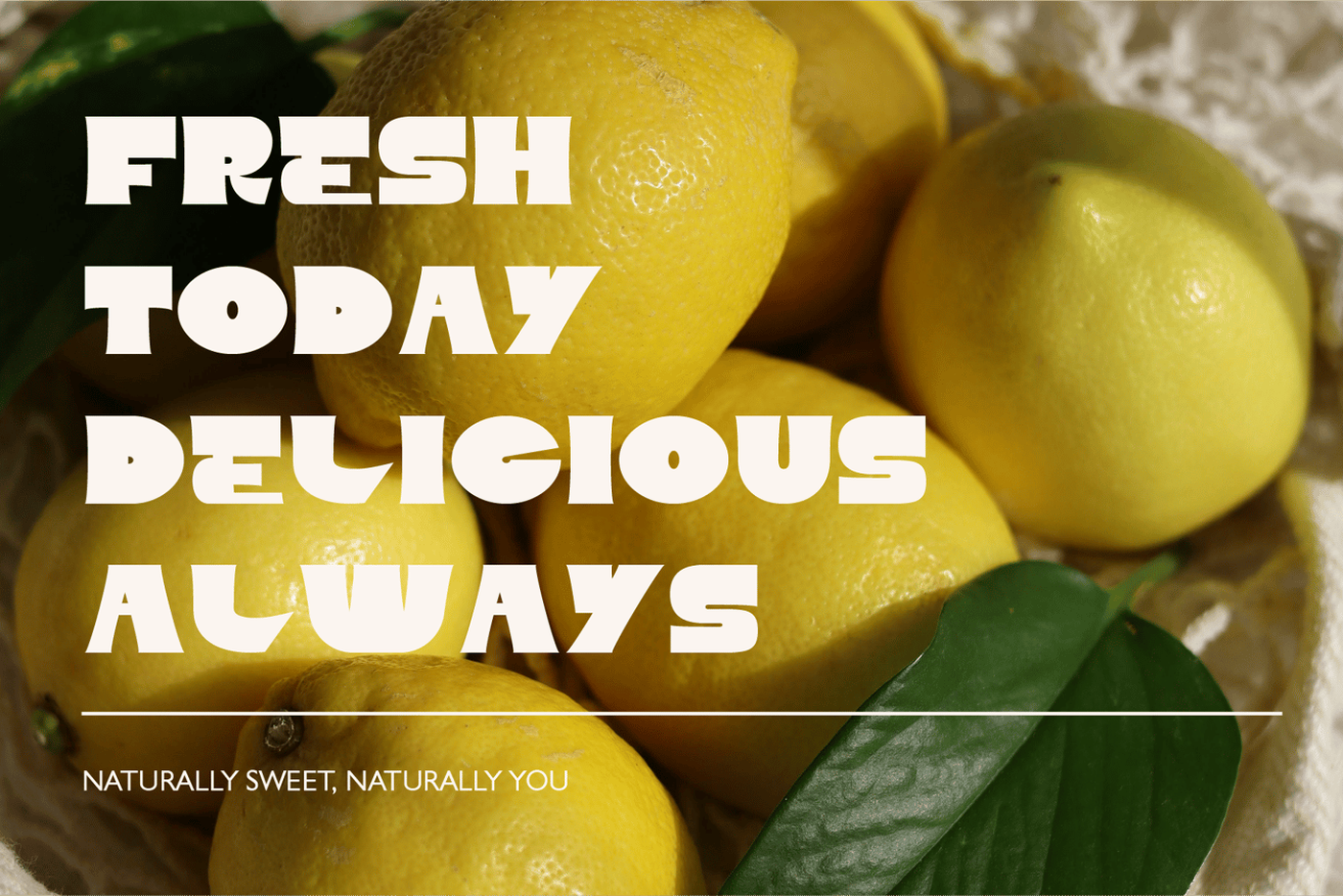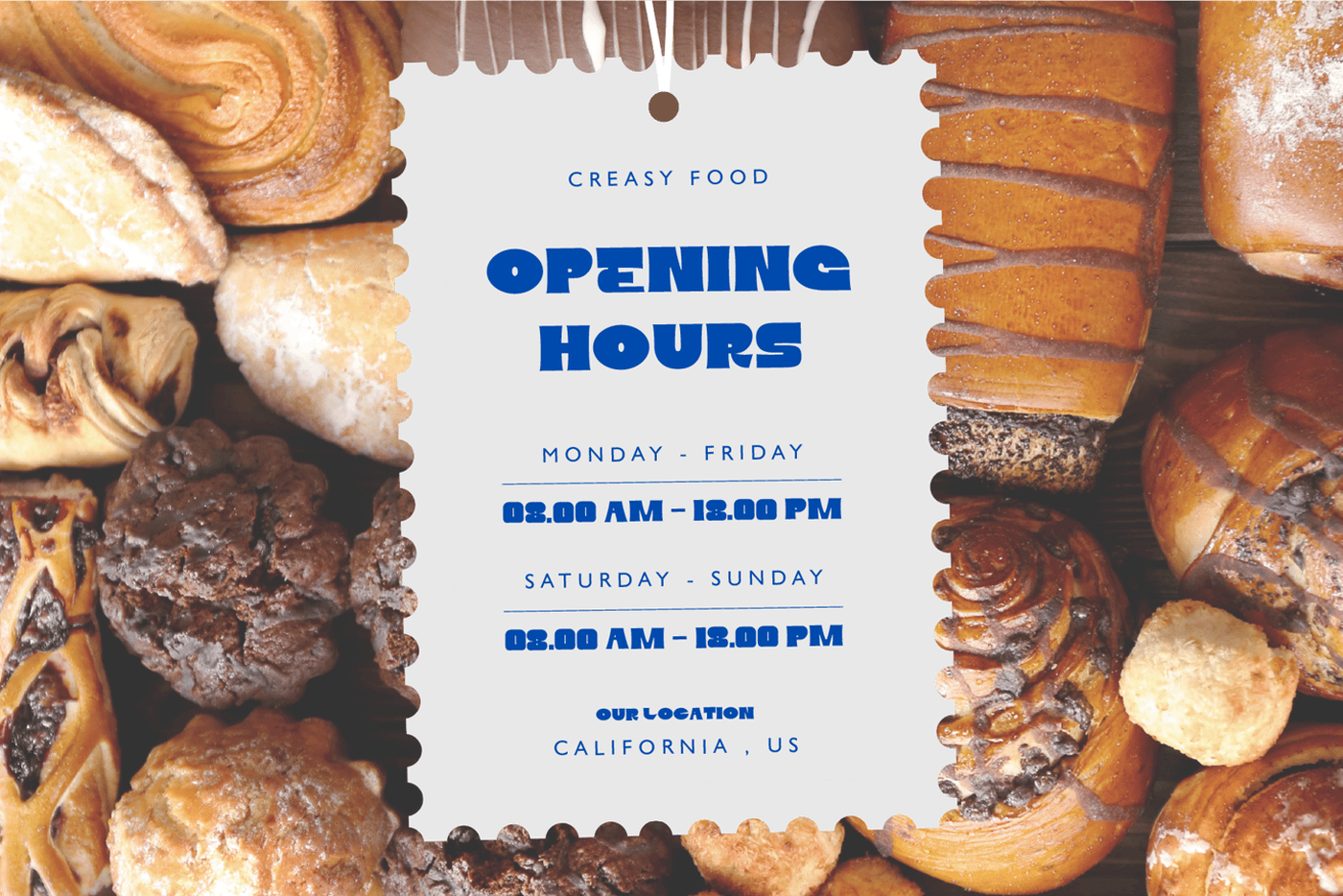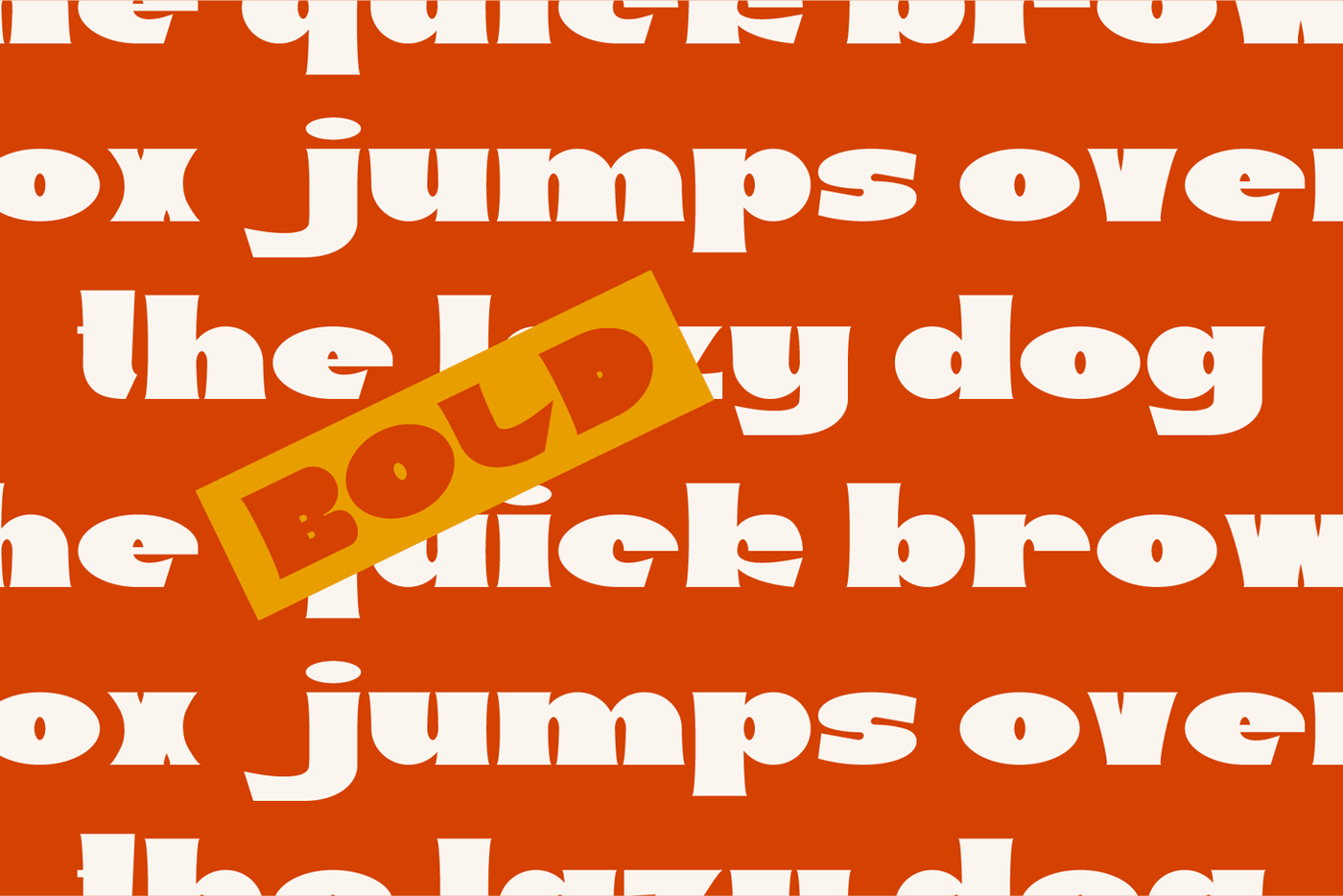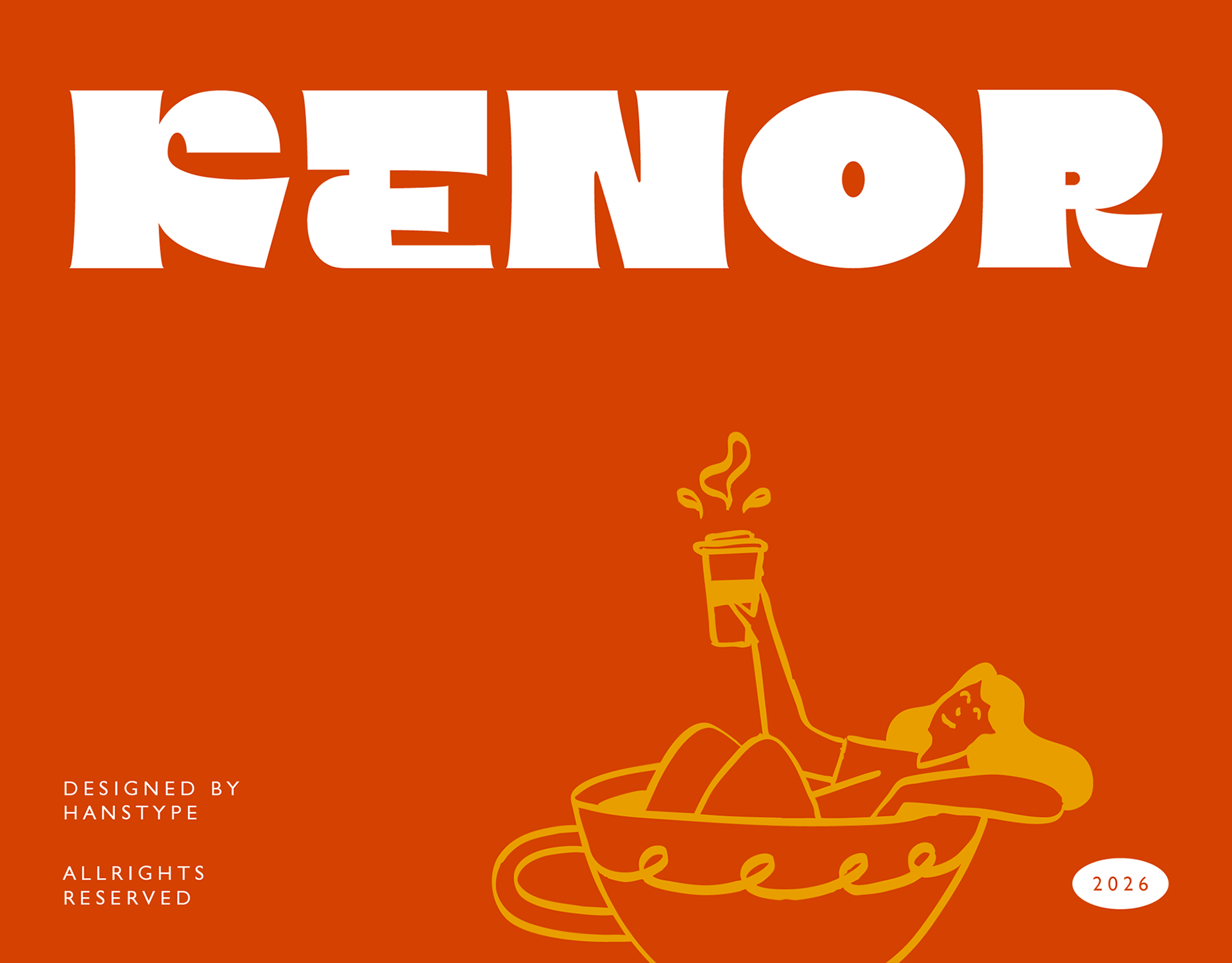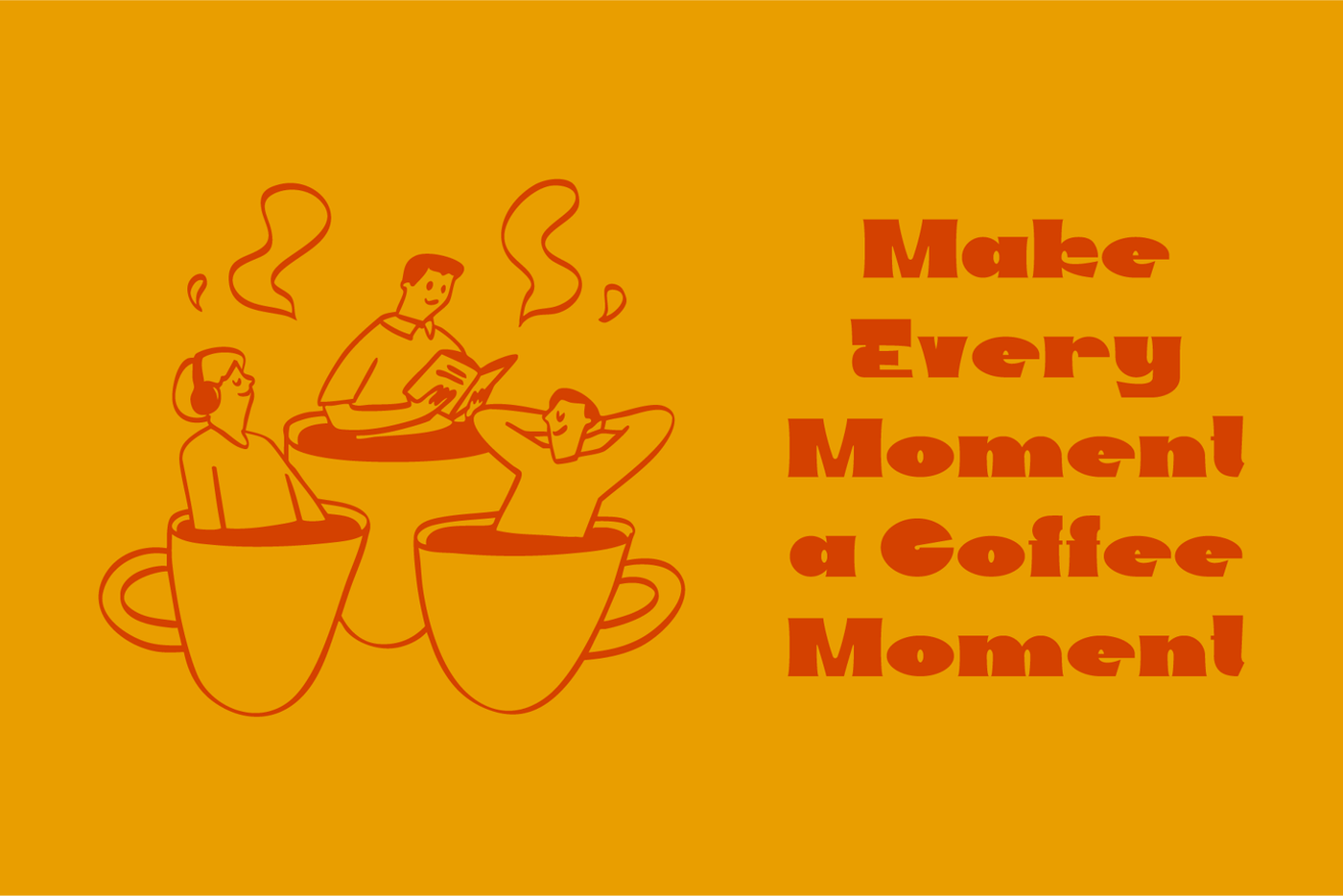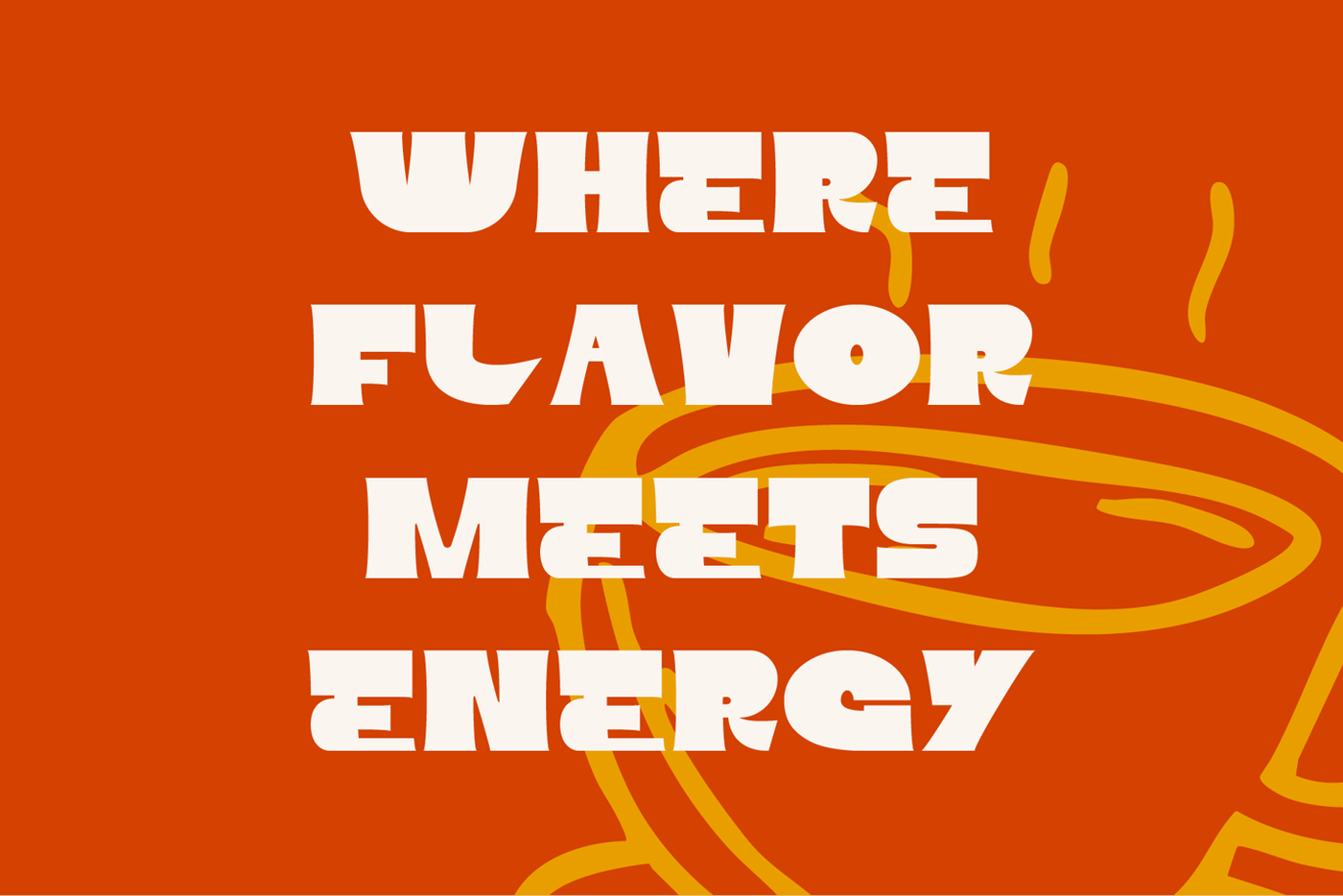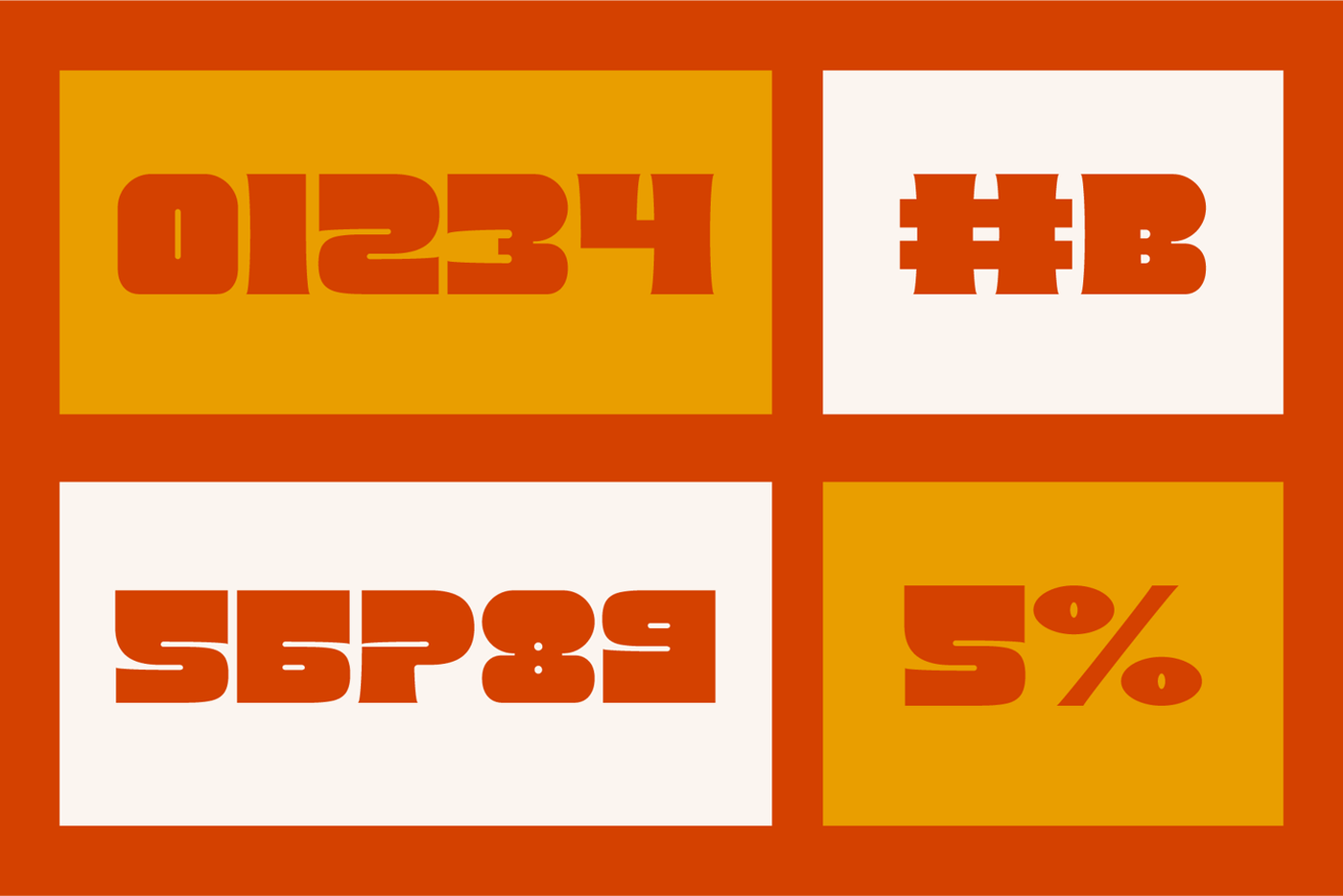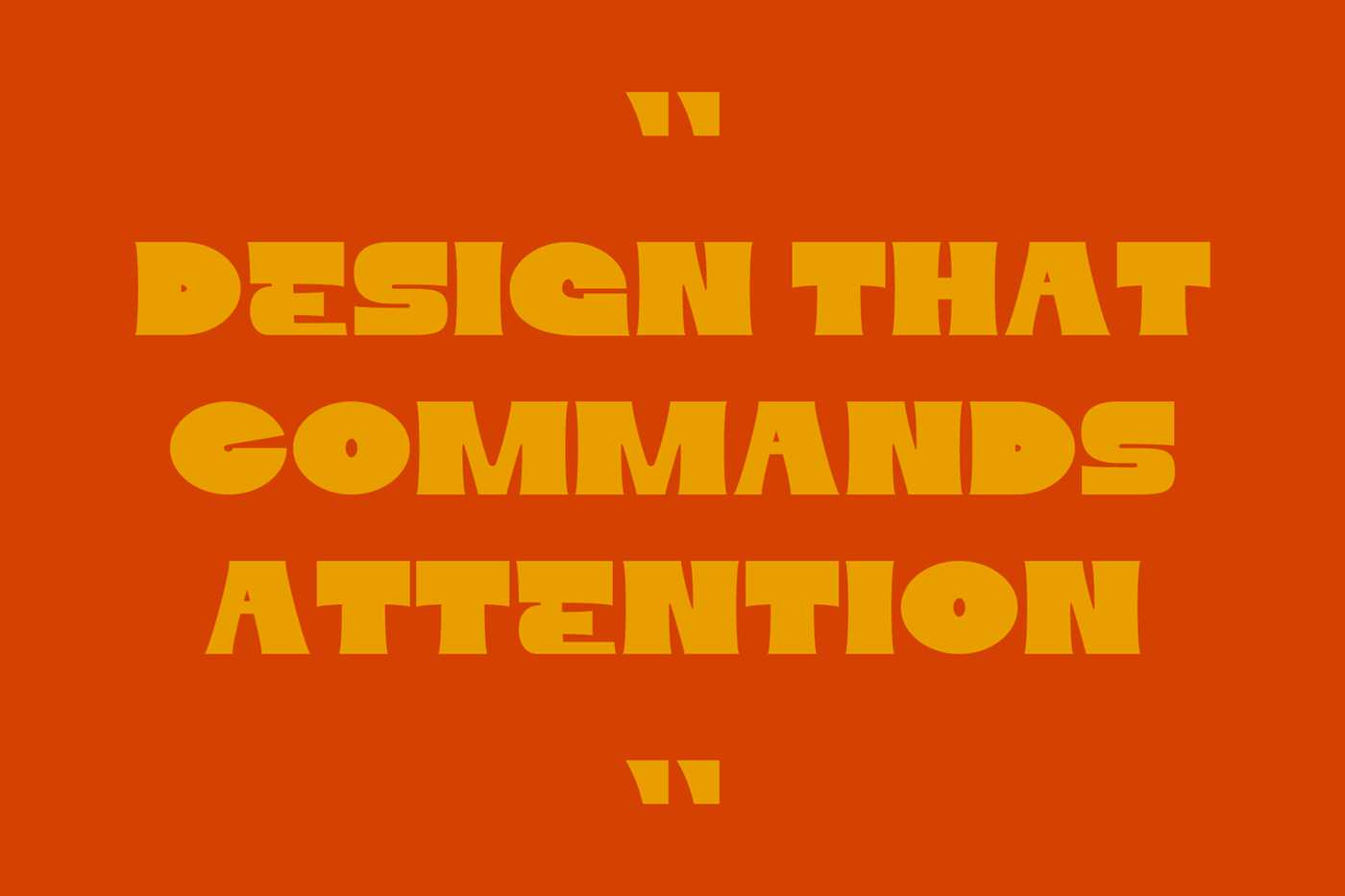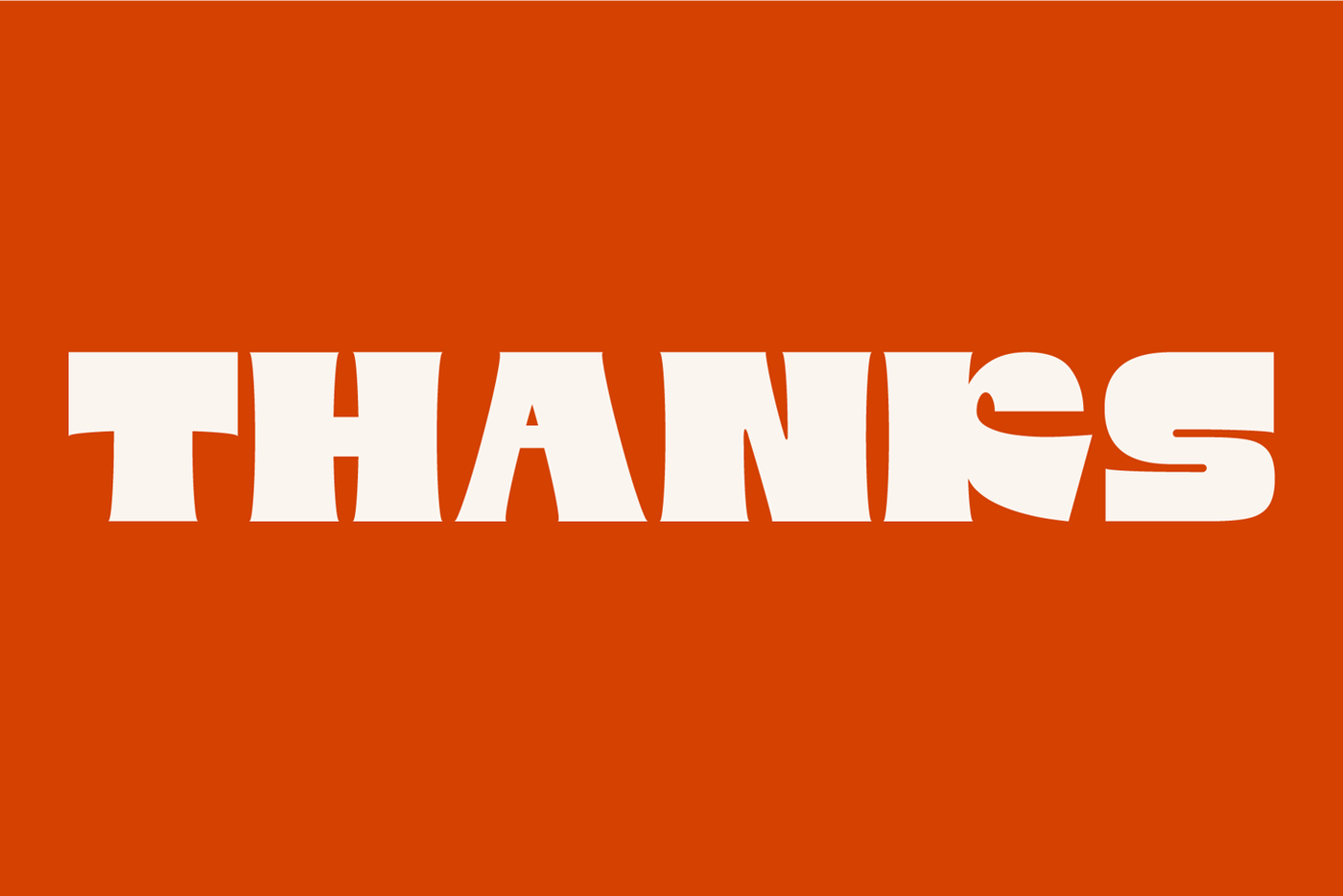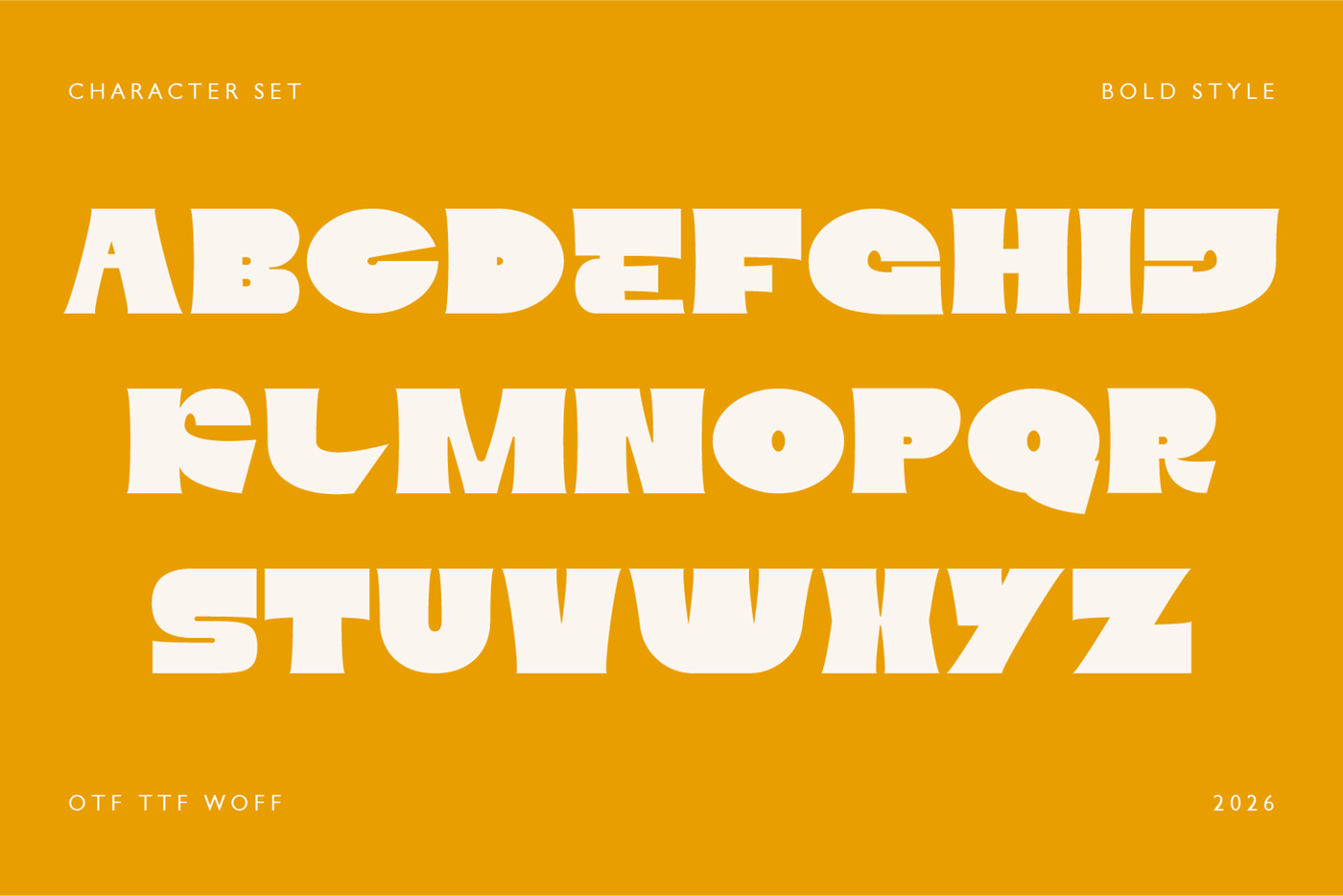
Kenor - Retro Display Font
Kenor is a striking bold retro typeface that captures the energy and charm of vintage design while staying modern and versatile. With strong, geometric shapes and clean lines, it commands attention in headlines, logos, posters, and branding projects.